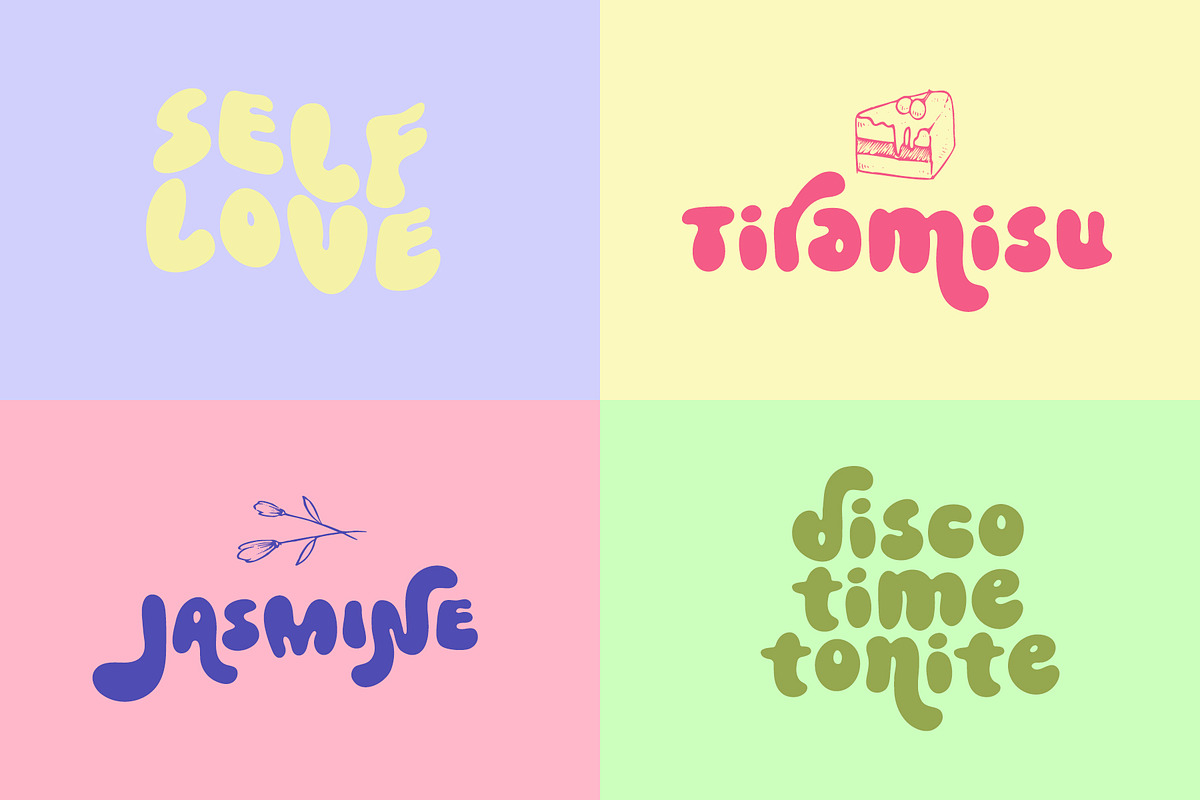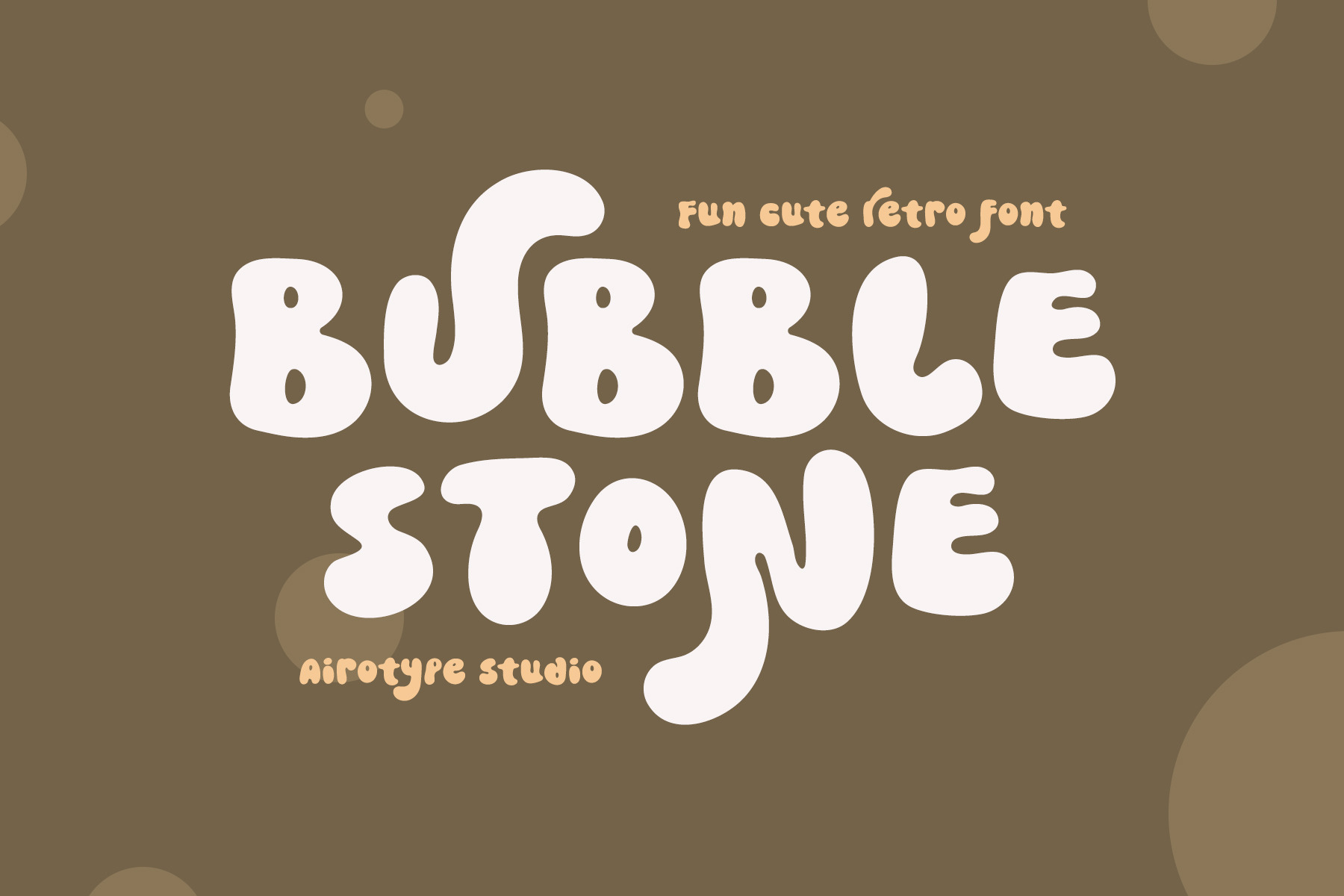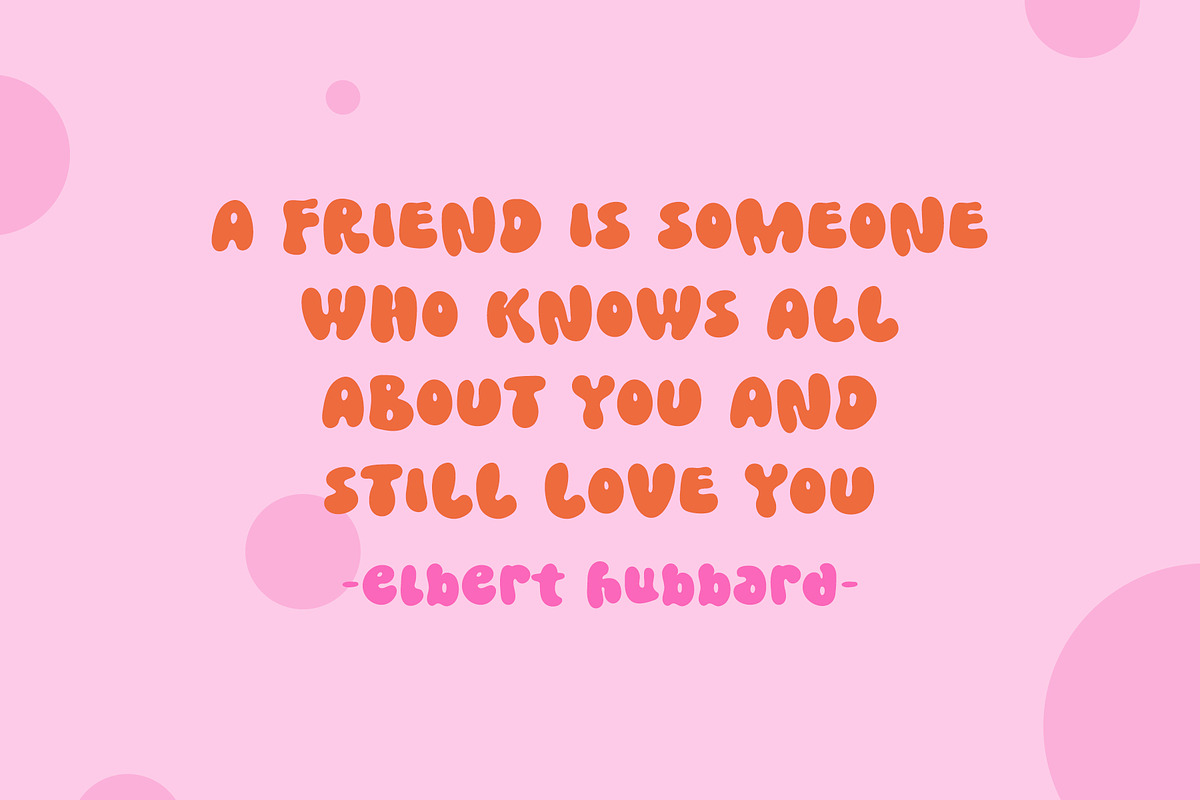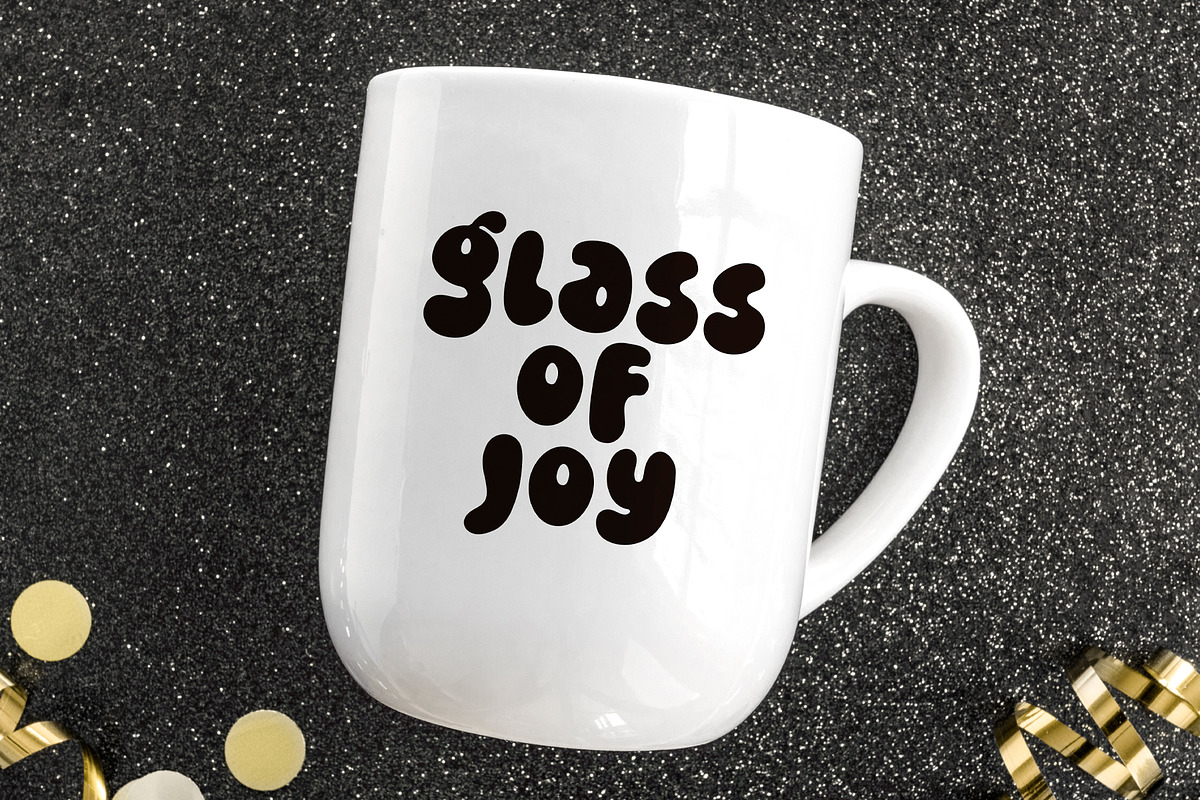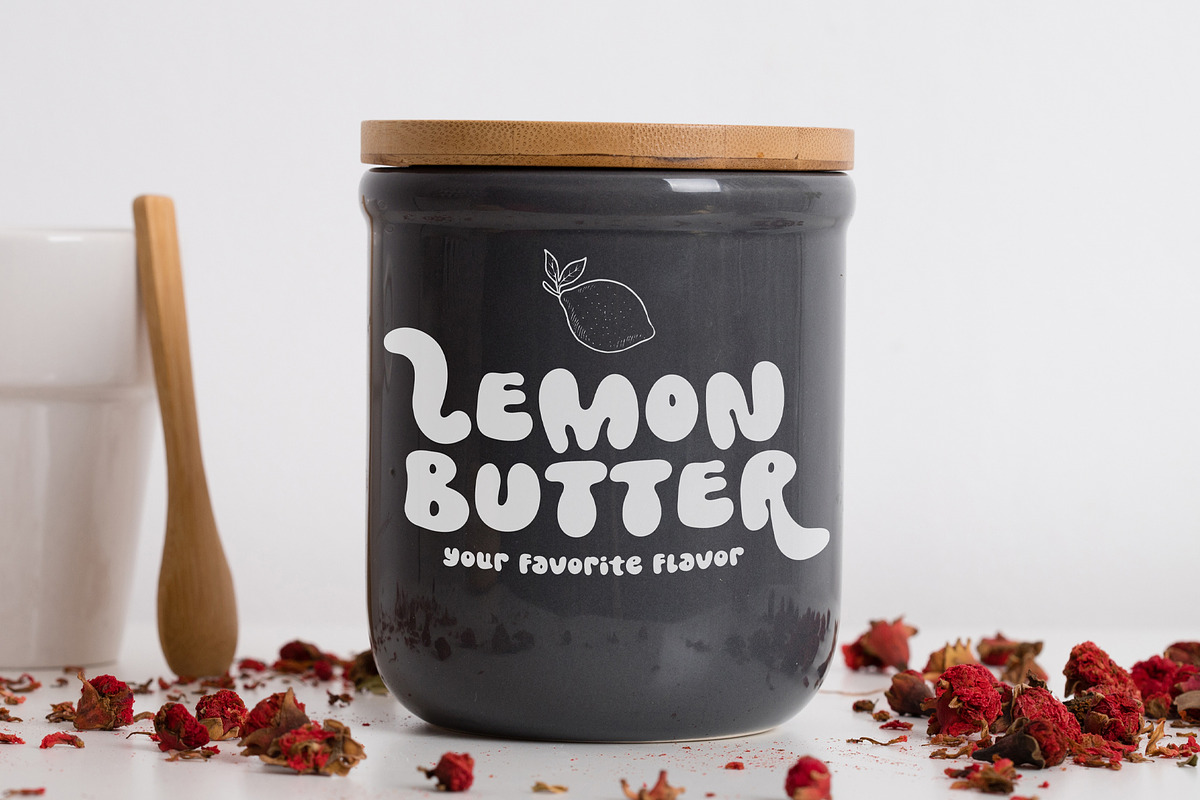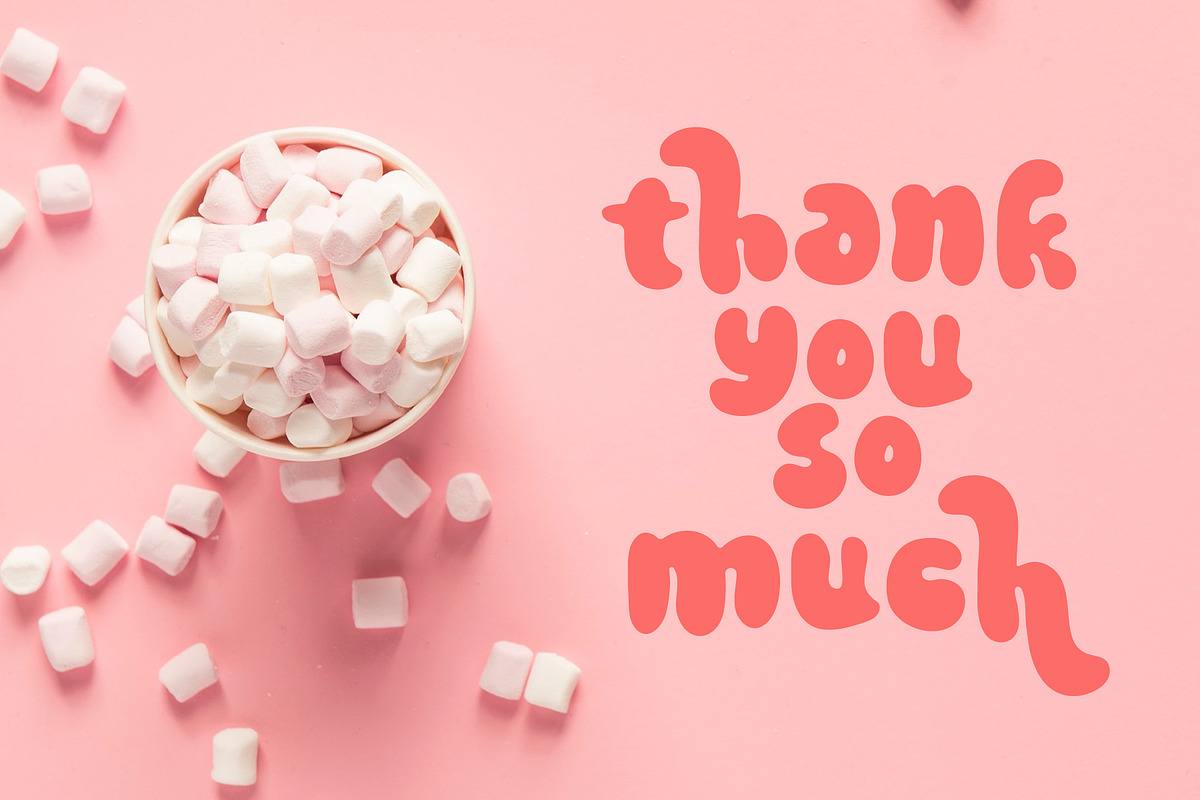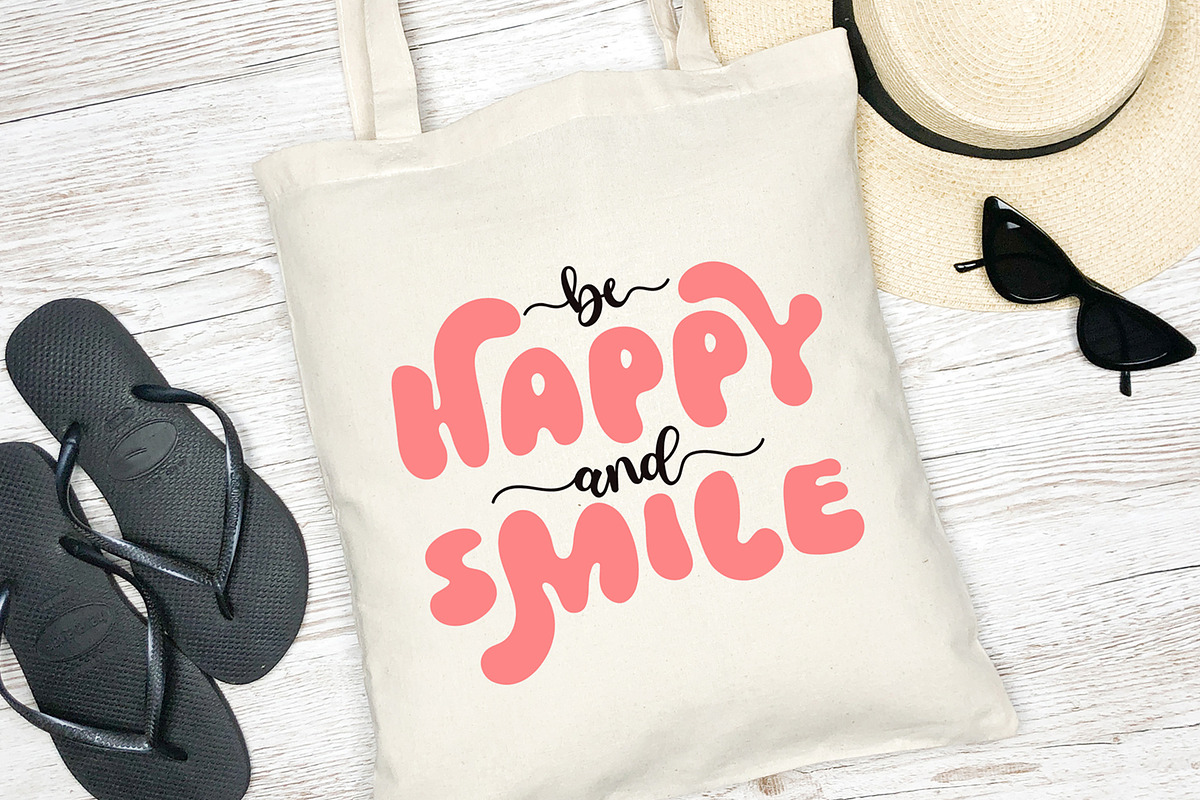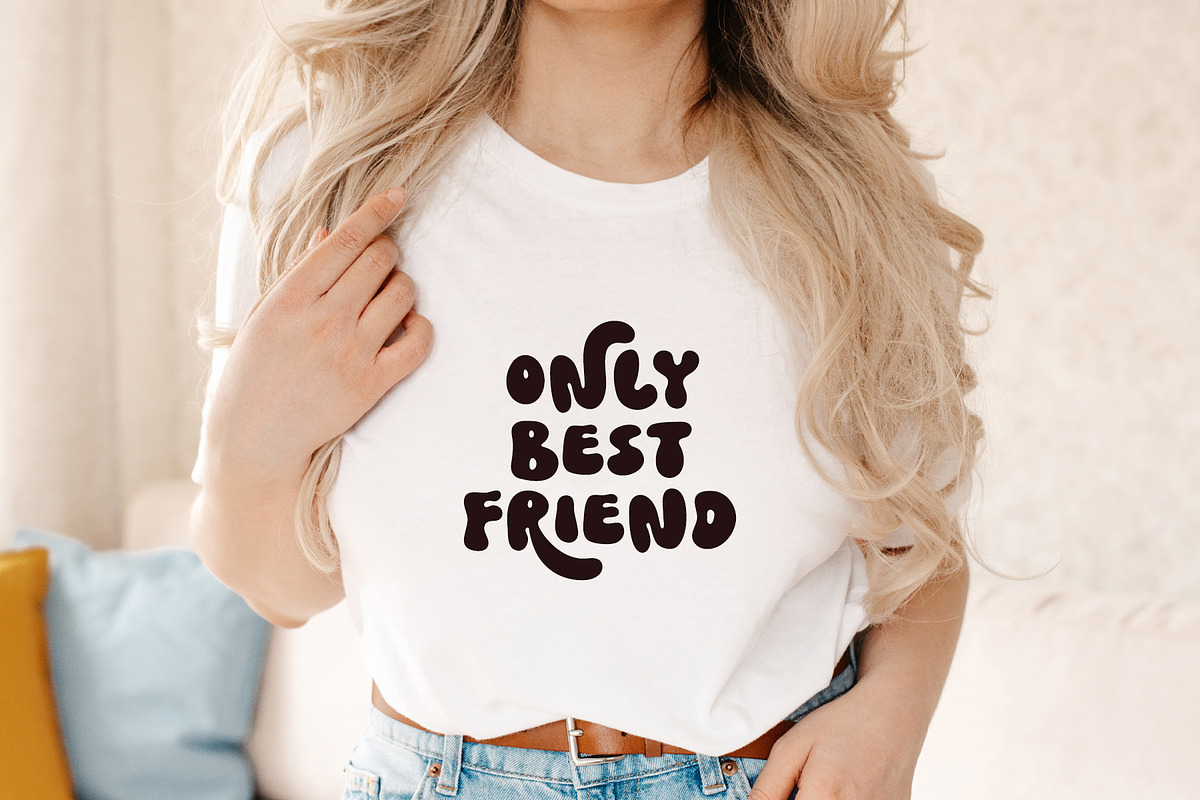
Bubble Stone - Cute Retro Font
Bubble Stone is fun and bubbly font with retro and vintage vibes. It has extra alternates to gives options in designing.
This font is perfect for any projects, especially with fun and vintage style, such as logo, crafting, t-shirt, branding, sticker, sublimation, quotes, and many more.
- Uppercase and Lowercase (with alternates)
- Most Multilingual Accent